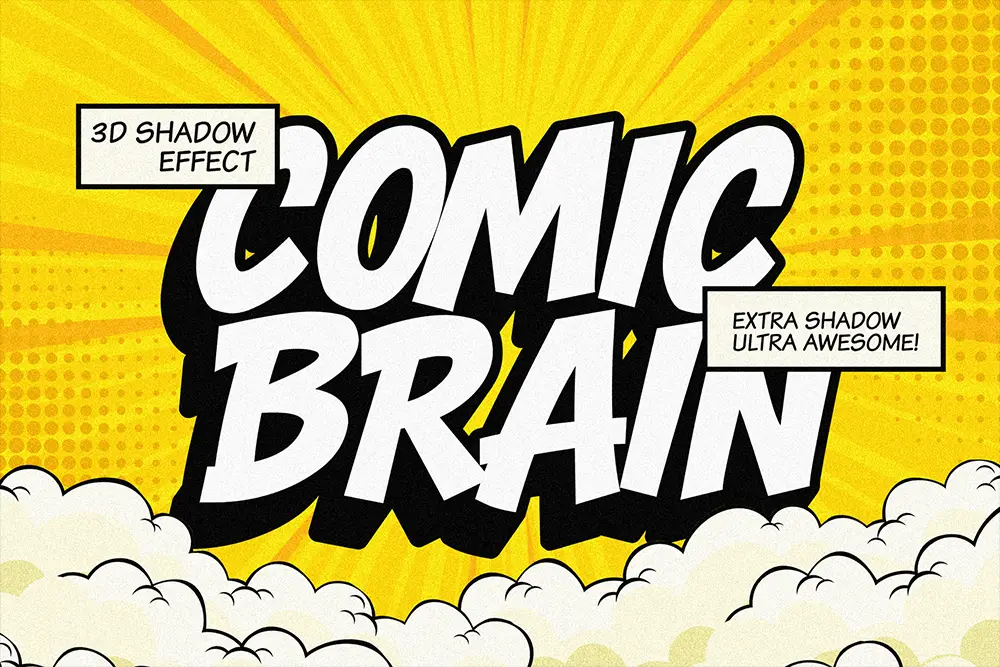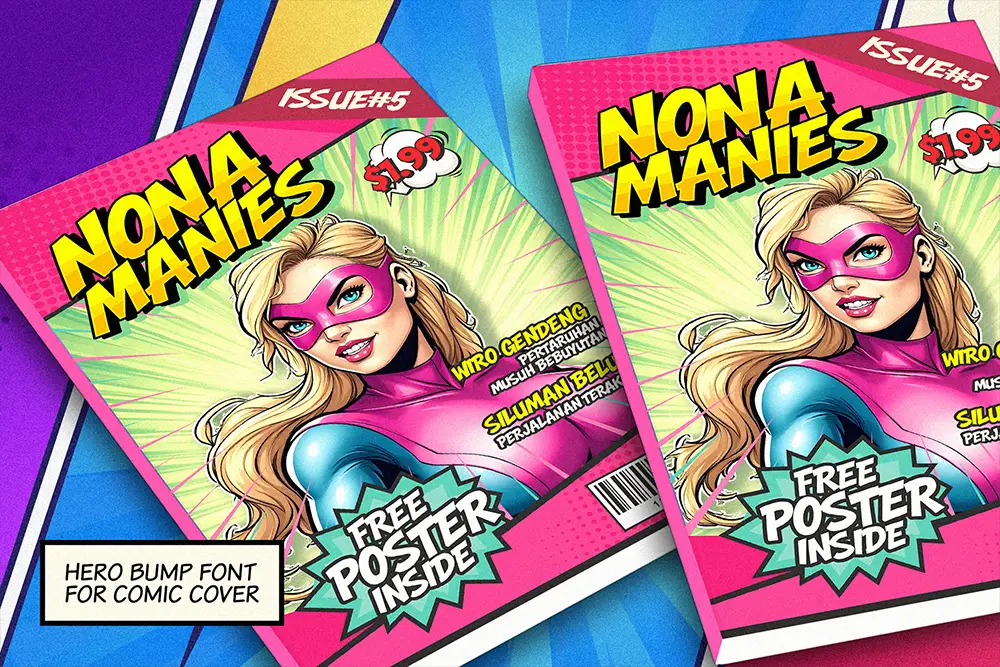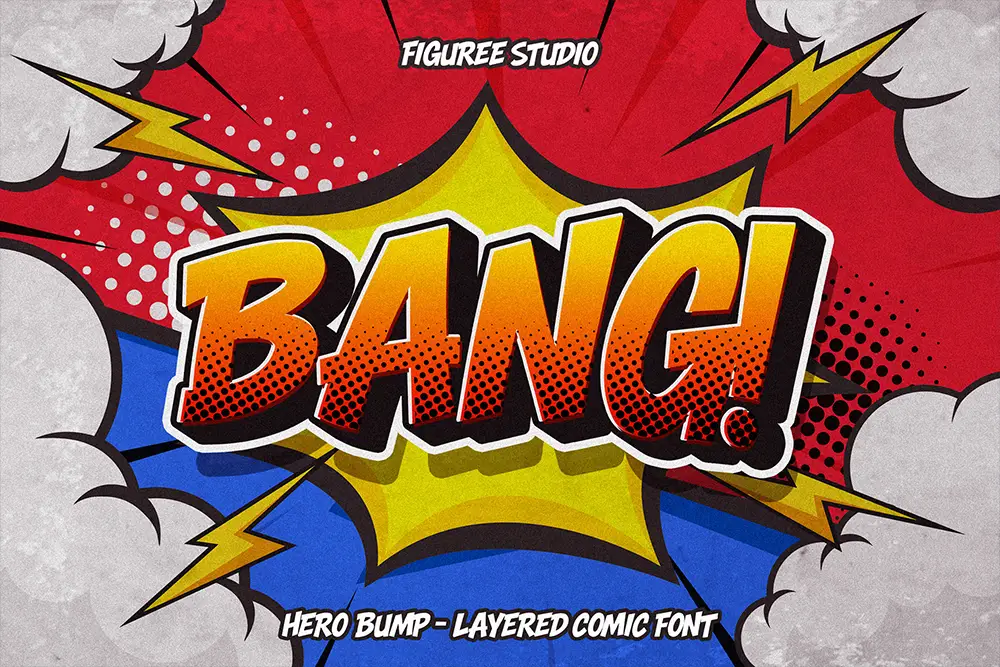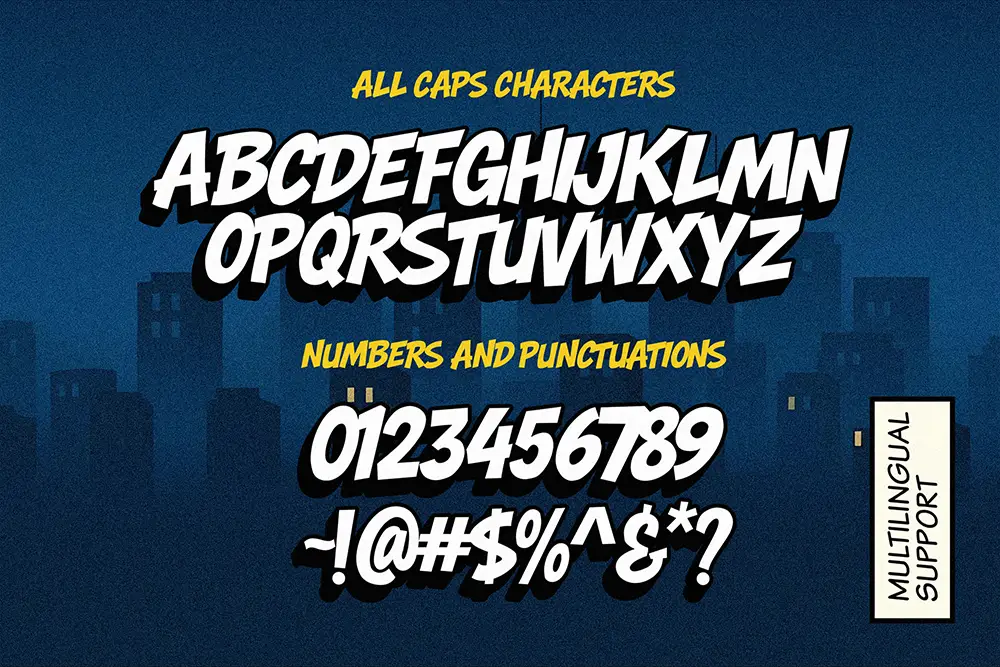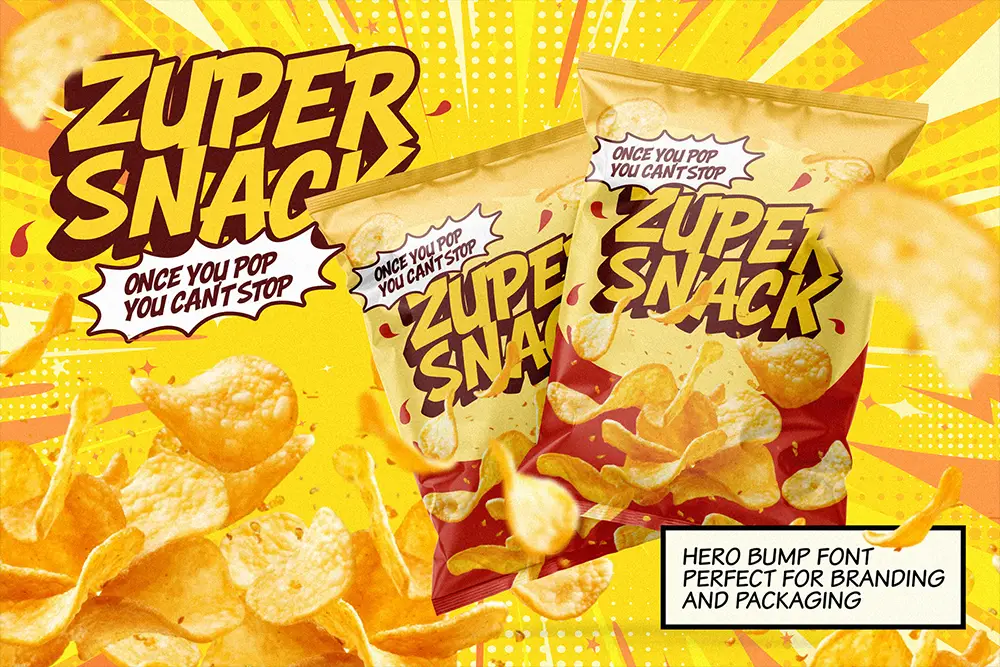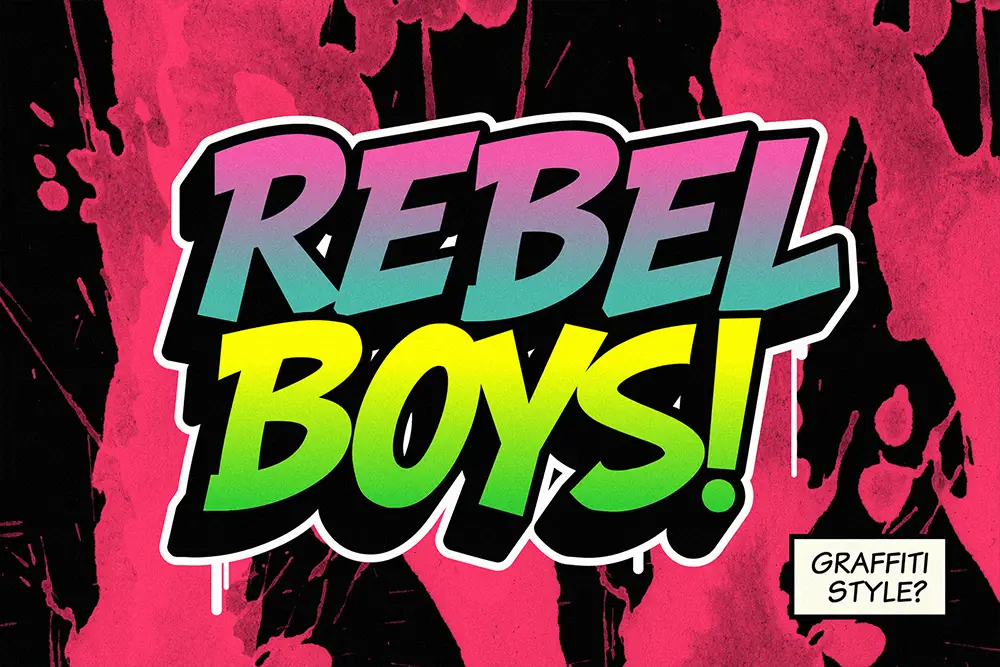
✦Hero Bump – The Bold Comic Display Font That Packs a Punch!
Looking to bring action, energy, and retro comic-book charm into your designs? Meet Hero Bump, the boldest comic display font in town—born to punch boring design right in the face! Inspired by the golden age of comics and classic superhero aesthetics, Hero Bump is a high-impact, all-caps typeface designed to save your headlines, posters, games, and branding from bland visuals.
✦What is Hero Bump?
Hero Bump is a powerful comic-style display font straight from the Figuree Typeverse. Built with dramatic weight, exaggerated forms, and dynamic letter angles, it’s perfect for creating visual storytelling that leaps off the page.
Whether you’re designing a retro flyer, comic book cover, superhero logo, or gaming poster, Hero Bump delivers that unmistakable zap-pow-boom energy.
✦Key Features of Hero Bump:
- All Caps Typeface – Designed entirely in uppercase for maximum impact.
- Bold & Loud Style – Heavy, energetic strokes for visual dominance.
- 3D Shadow Effect – Gives your text a sense of movement and depth.
- Comic-Inspired Letterforms – Perfectly evokes action and nostalgia.
- Multilingual Support – Covers multiple languages and extended characters.
- Punctuation & Symbols Included – Fully equipped for expressive copywriting.
✦Design Tips Using Hero Bump:
- Pair it with Halftone Backgrounds – Use retro textures for an authentic comic vibe.
- Layer with Bold Colors & Explosions – Emphasize action words like ZAP!, BOOM!, and BUMP!.
- Use it Large – Hero Bump is made for headlines, not body text. Keep it BIG and BOLD.
✦Why Designers Love Hero Bump:
Hero Bump isn’t just another cartoon font—it’s a complete comic toolkit. With a dramatic 3D shadow effect, expressive lettering, and multilingual versatility, this font lets your words do the action. It brings back the nostalgia of classic comics while fitting modern graphic needs.
Whether you’re designing for print, digital, or motion graphics, Hero Bump helps your message stand tall, shout loud, and punch through the noise.